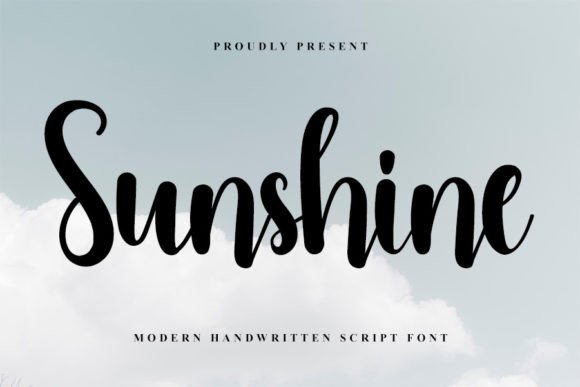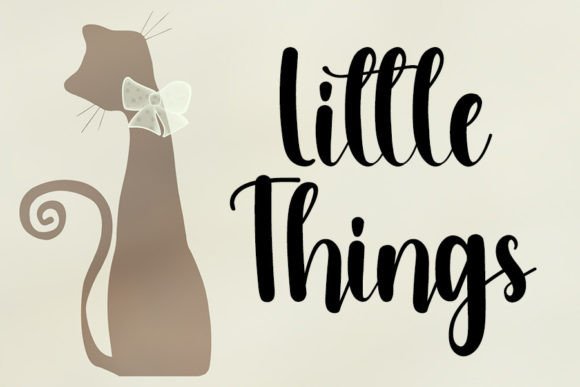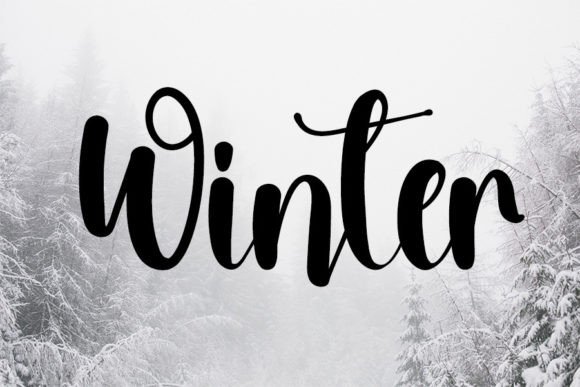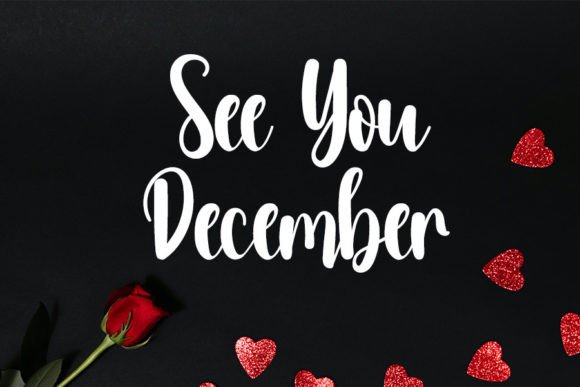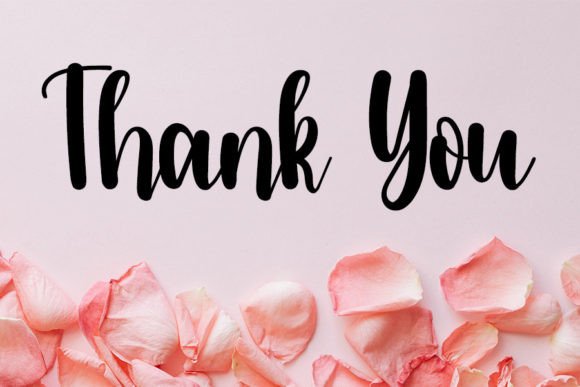
Sunshine Font
About Sunshine Font
Sunshine Font is a trendy handwritten typeface that blends classic calligraphy with a modern style. It has smooth and clean letterforms that add a touch of elegance and sophistication to any design. Whether you are working on wedding invitations, branding, or social media graphics, Sunshine will help make your projects stand out with its classy and refined look.
Classic Style Meets Modern Design
Sunshine is inspired by timeless calligraphy but updated with fresh, flowing strokes. This mix offers both beauty and readability. The font’s clear and balanced characters ensure your message looks polished while feeling warm and inviting. This makes Sunshine perfect for many design uses.
Great for Many Creative Projects
This font works well in various design contexts, including:
• Wedding invitations and save-the-date cards
• Brand logos and packaging
• Magazine layouts and editorial designs
• Social media posts and online ads
• Event signs and personalized stationery
With Sunshine, your work will always feel elegant and stylish.
Why Choose Sunshine Font?
Sunshine Font is popular because it provides:
• Clean, elegant letterforms inspired by classic calligraphy
• Easy readability at all sizes
• PUA encoding for easy use of special characters and alternates
These features make Sunshine both practical and beautiful.
Make Your Designs Shine
Typography helps set the mood of your design. Sunshine Font adds romance, class, and timeless charm. Whether for a wedding or a luxury brand, it gives your work a special sparkle that draws attention.
In short, Sunshine Font is a lovely handwritten script that combines classic elegance with modern style. It’s ideal for anyone wanting to add sophistication and charm to wedding, branding, or creative projects. Add Sunshine to your font collection and create designs that truly shine.